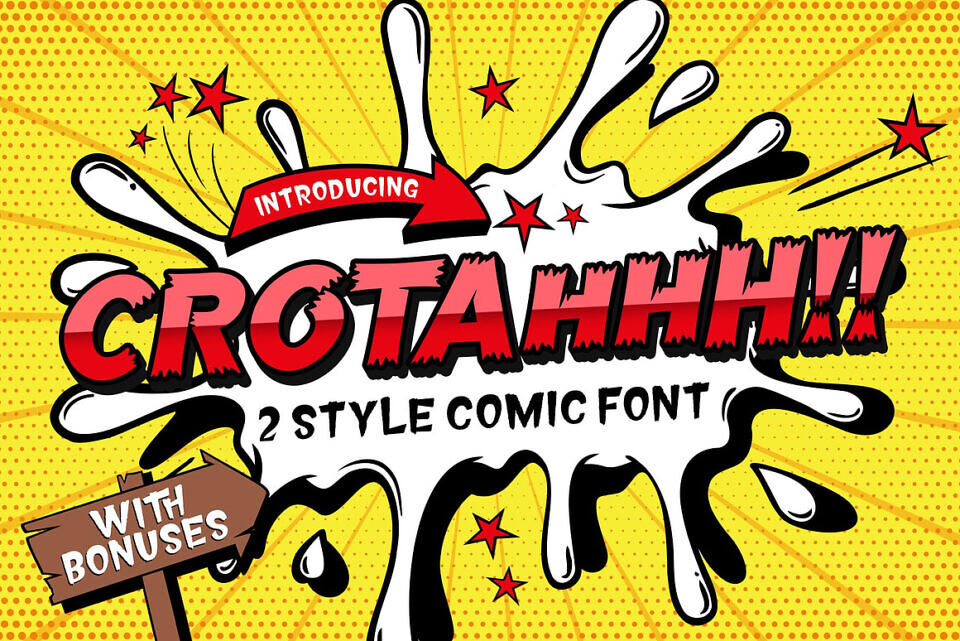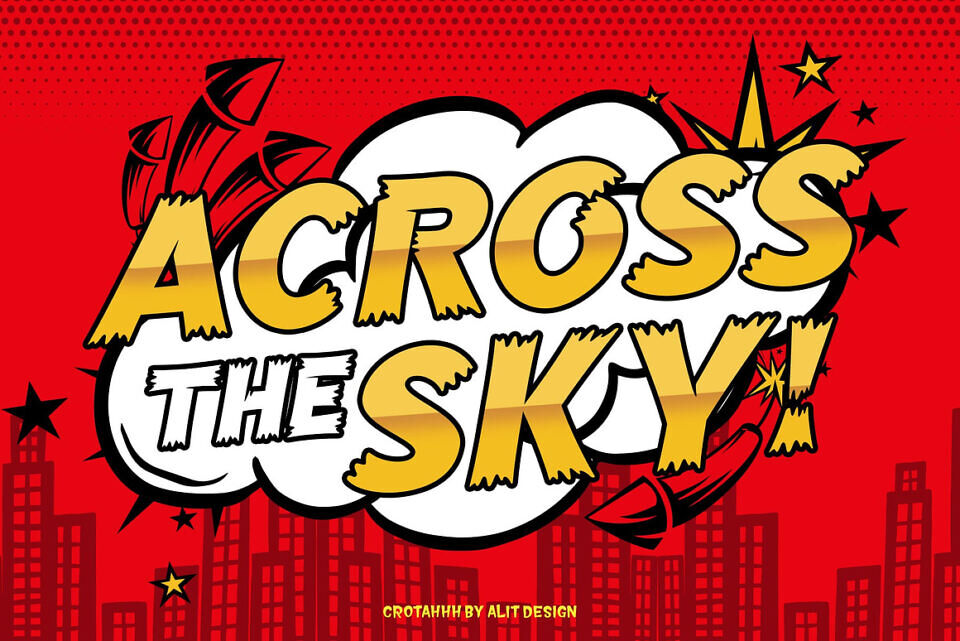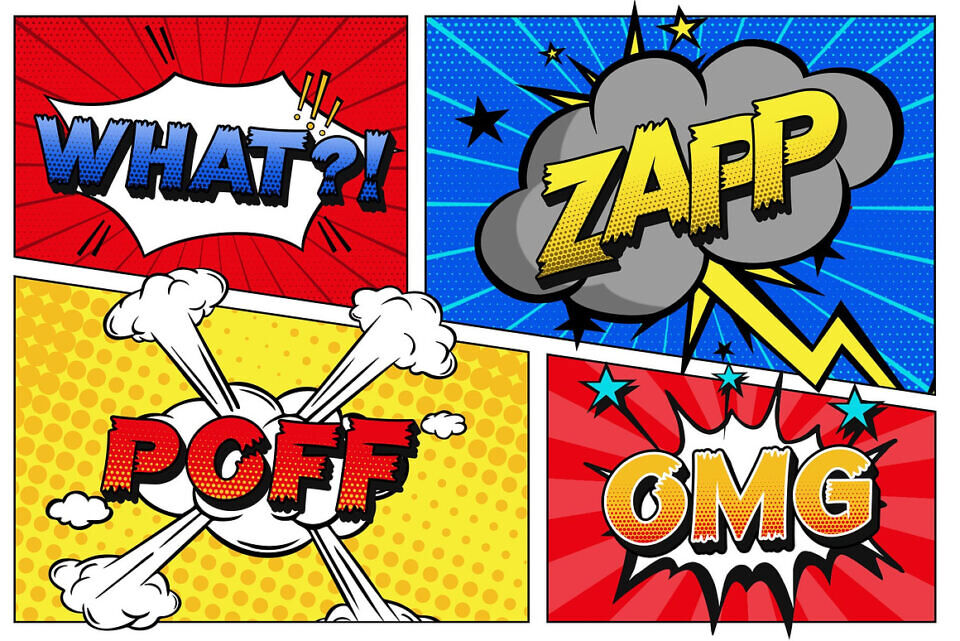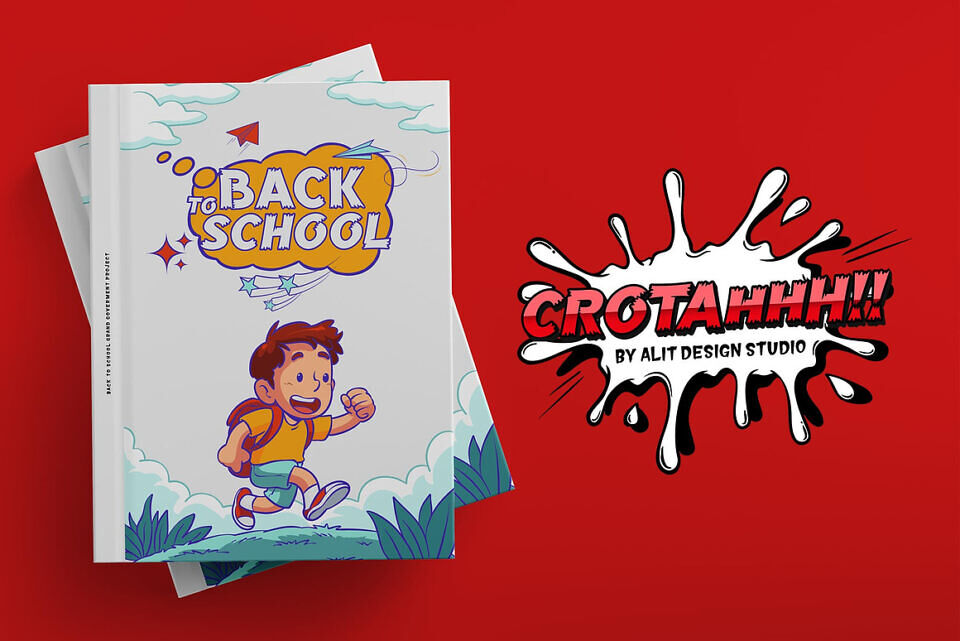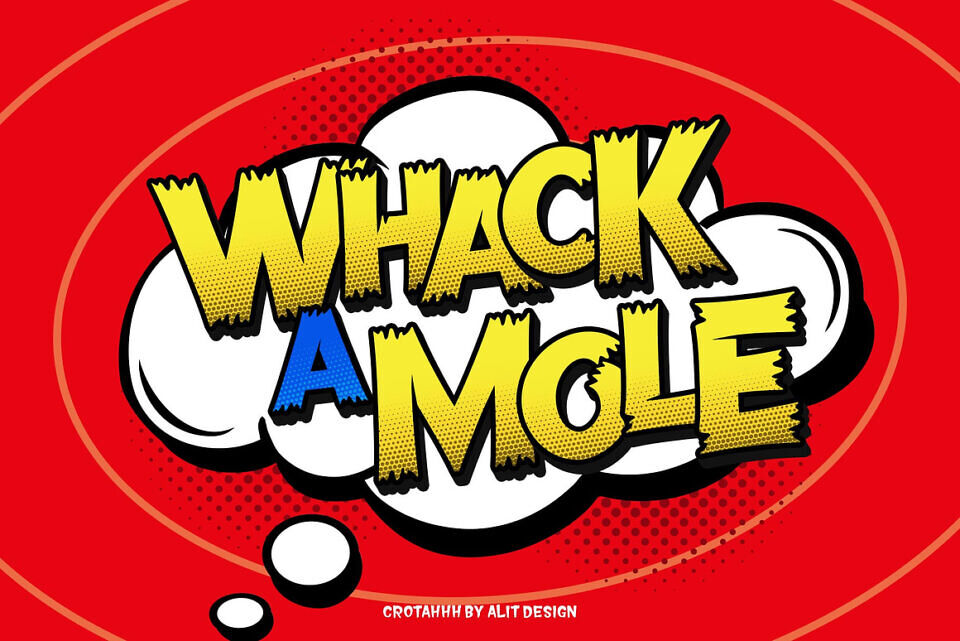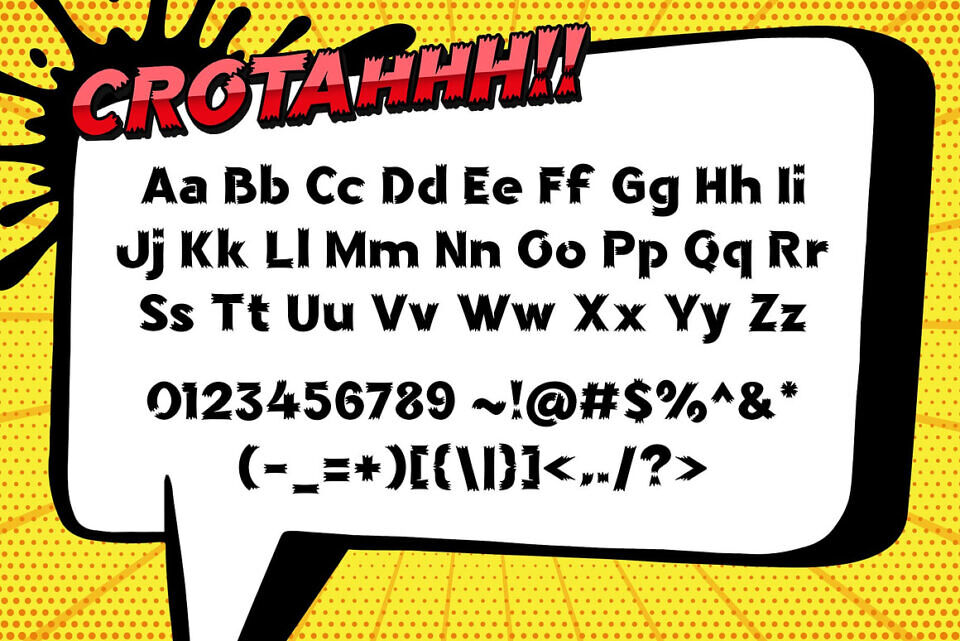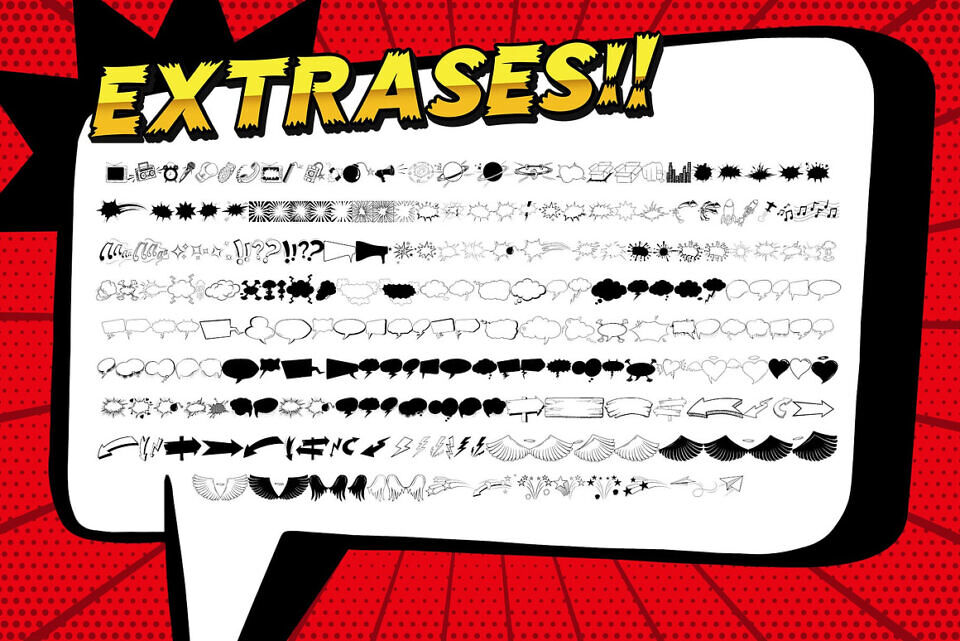
Crotah Font
The Crotah font is inspired by the style of letters in comics that have a non-serious and fun character. The shape of the letters in the Crotah font is like brush strokes at the ends of the letters which makes the character of the letters unique and relaxed. The Crotah font is very suitable for making designs with non-serious concepts, designs for children, book headers, and of course for text on comics.
The Crotah Comic Style Font also gets a bonus character of 230 Comic-themed illustrations that make creating designs even easier. Simply by downloading The Crotah Comic Style Font, creating a Comic and non formal themed design is very quick and easy.
The Crotah Comic Style Font is perfect for magazine cover designs, brochures, flyers. Instagram ads, Canva Design and so on with comic, non-serious, pop art, game mobile and fun design. Besides that this font is very easy to use both in design and non-design programs because everything changes and glyphs are supported by Unicode (PUA).